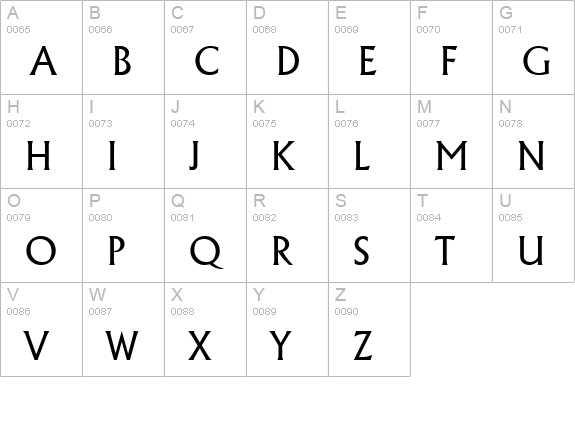
AdelonSerial-Regular is the standard, neutral variant in the AdelonSerial typeface family \xE2\x80\x94 well suited to general body text, paragraphs, and standard typographic work.
AdelonSerial-Regular font is a timeless and elegant typeface that exudes sophistication and versatility. With its clean lines and classic proportions, this font is perfect for a wide range of design projects, from branding to editorial. The balanced contrast between the thick and thin strokes gives AdelonSerial-Regular a sense of refinement and professionalism. The best part? AdelonSerial-Regular is available for free download at FontsMarket.com, making it accessible to designers and creatives looking to elevate their work without breaking the bank. Whether you're working on a logo, website, or print material, this font is sure to add a touch of class and sophistication to your designs. Download AdelonSerial-Regular today and take your projects to the next level.